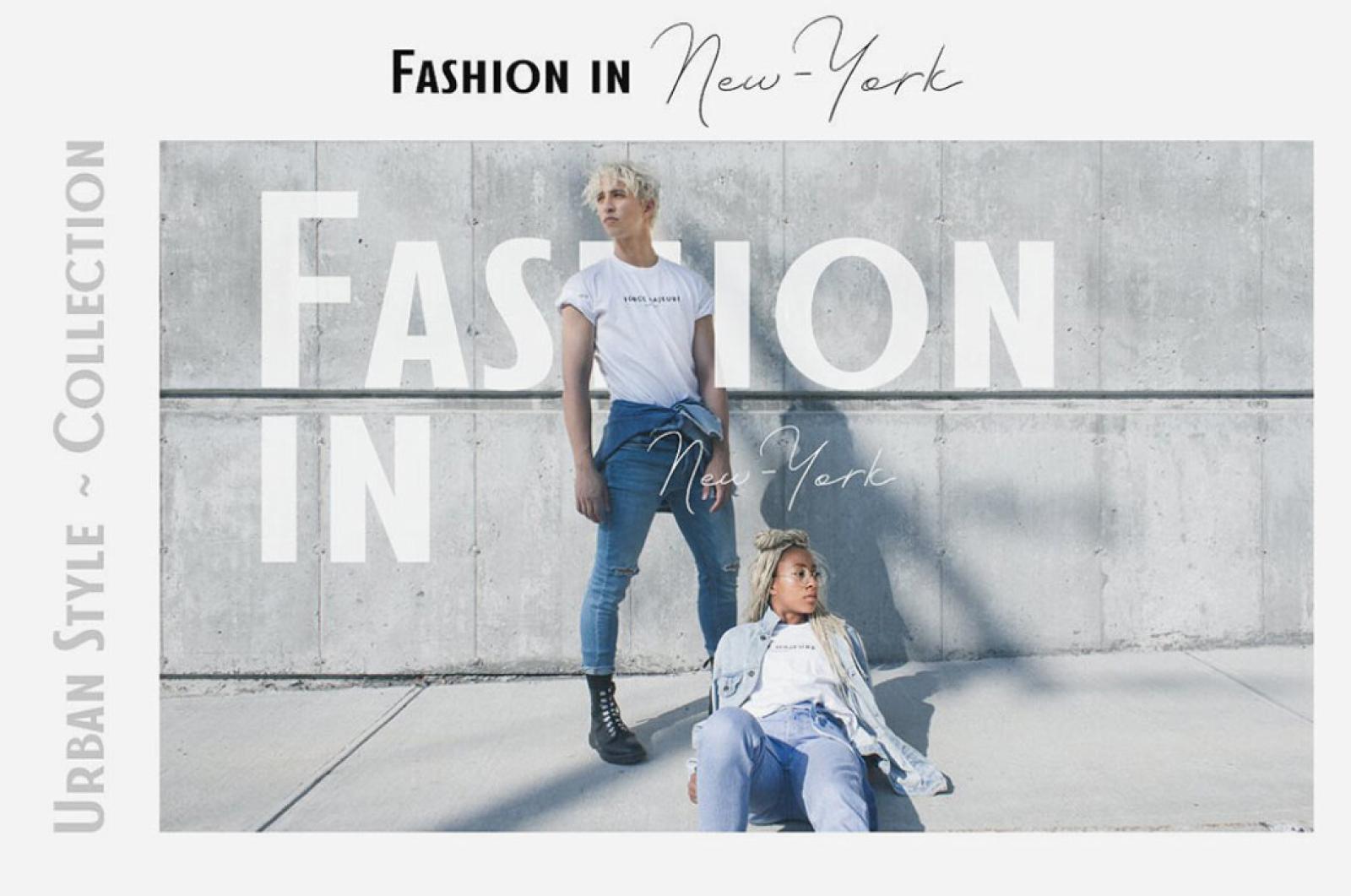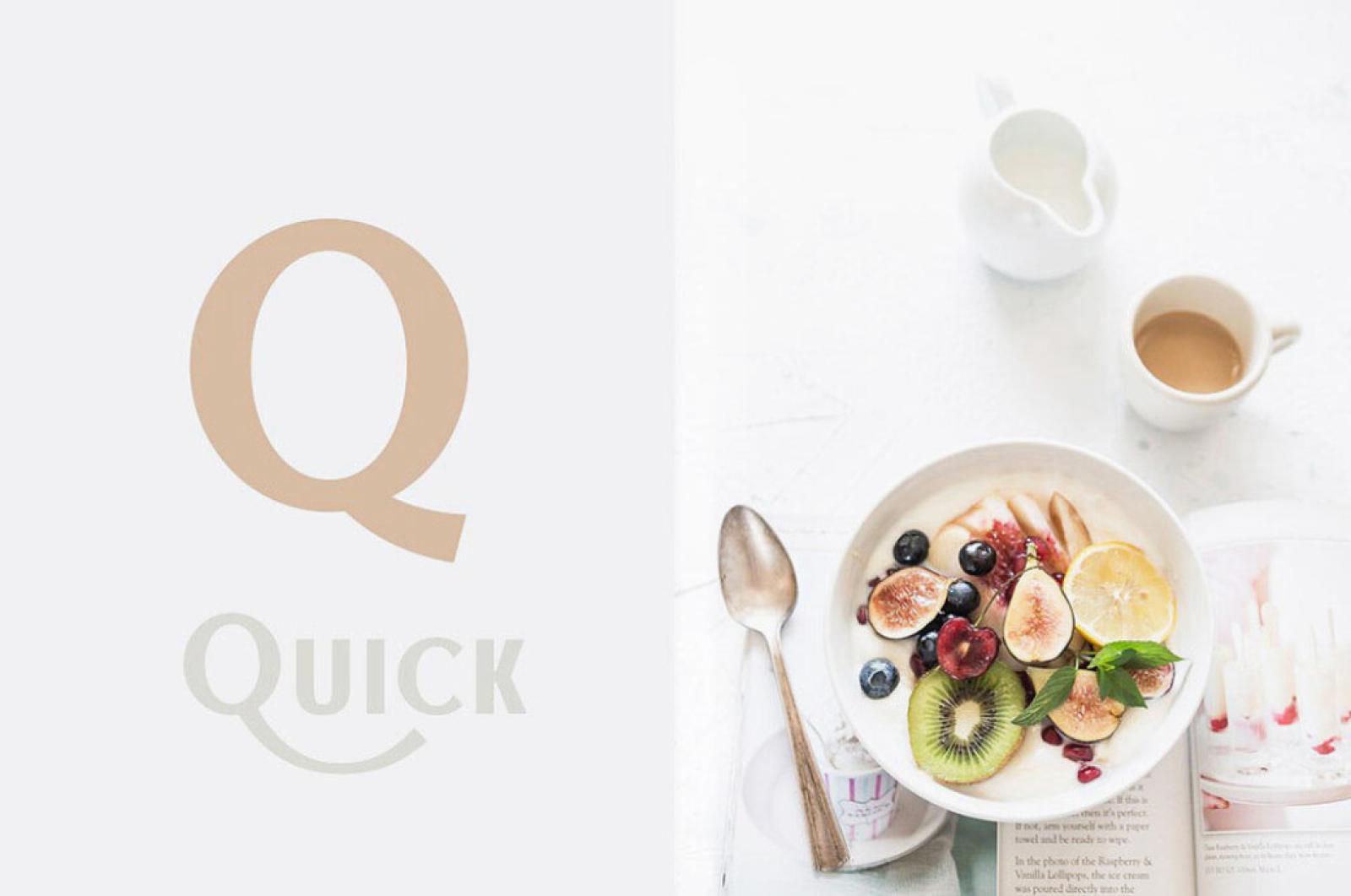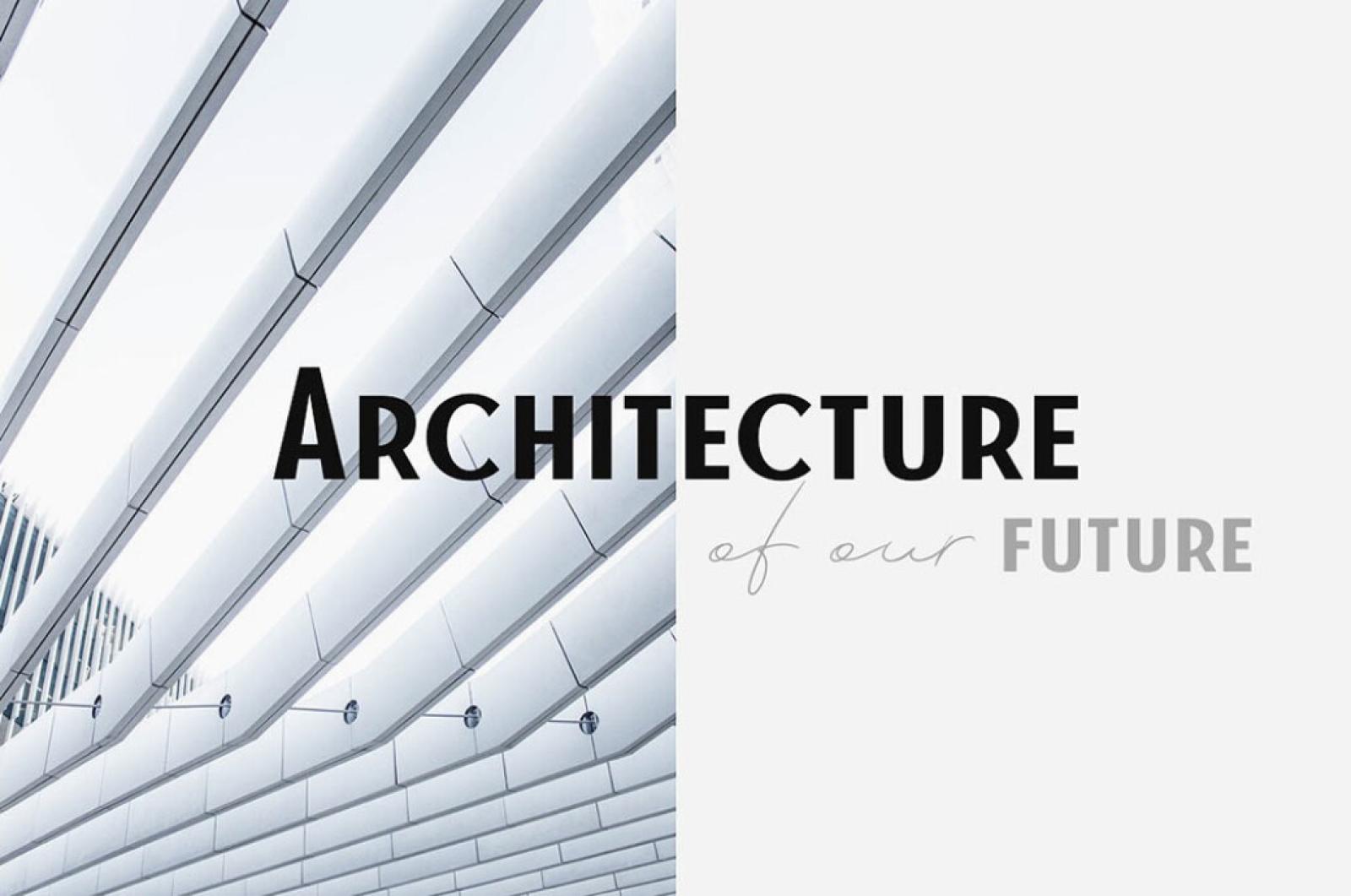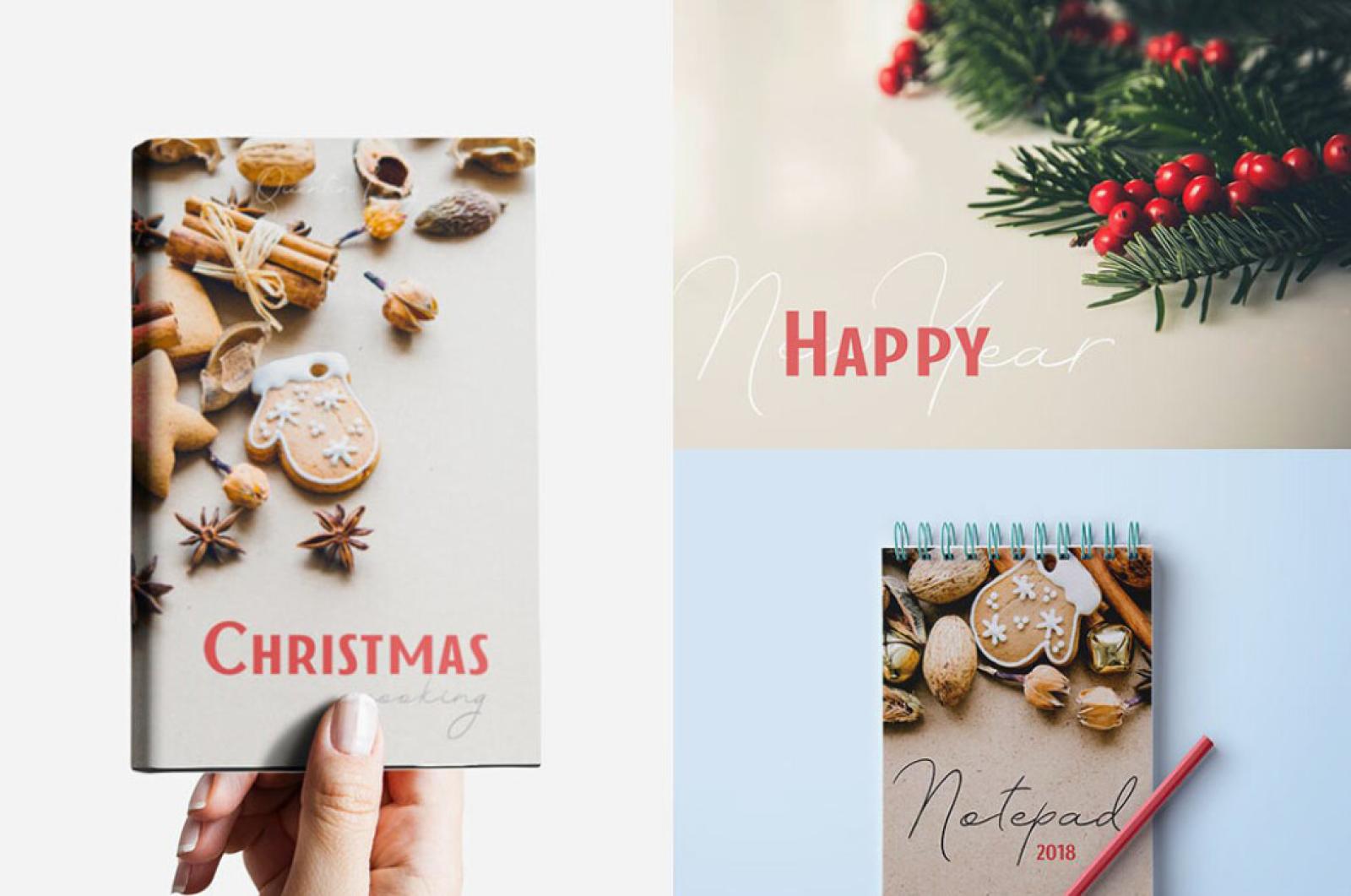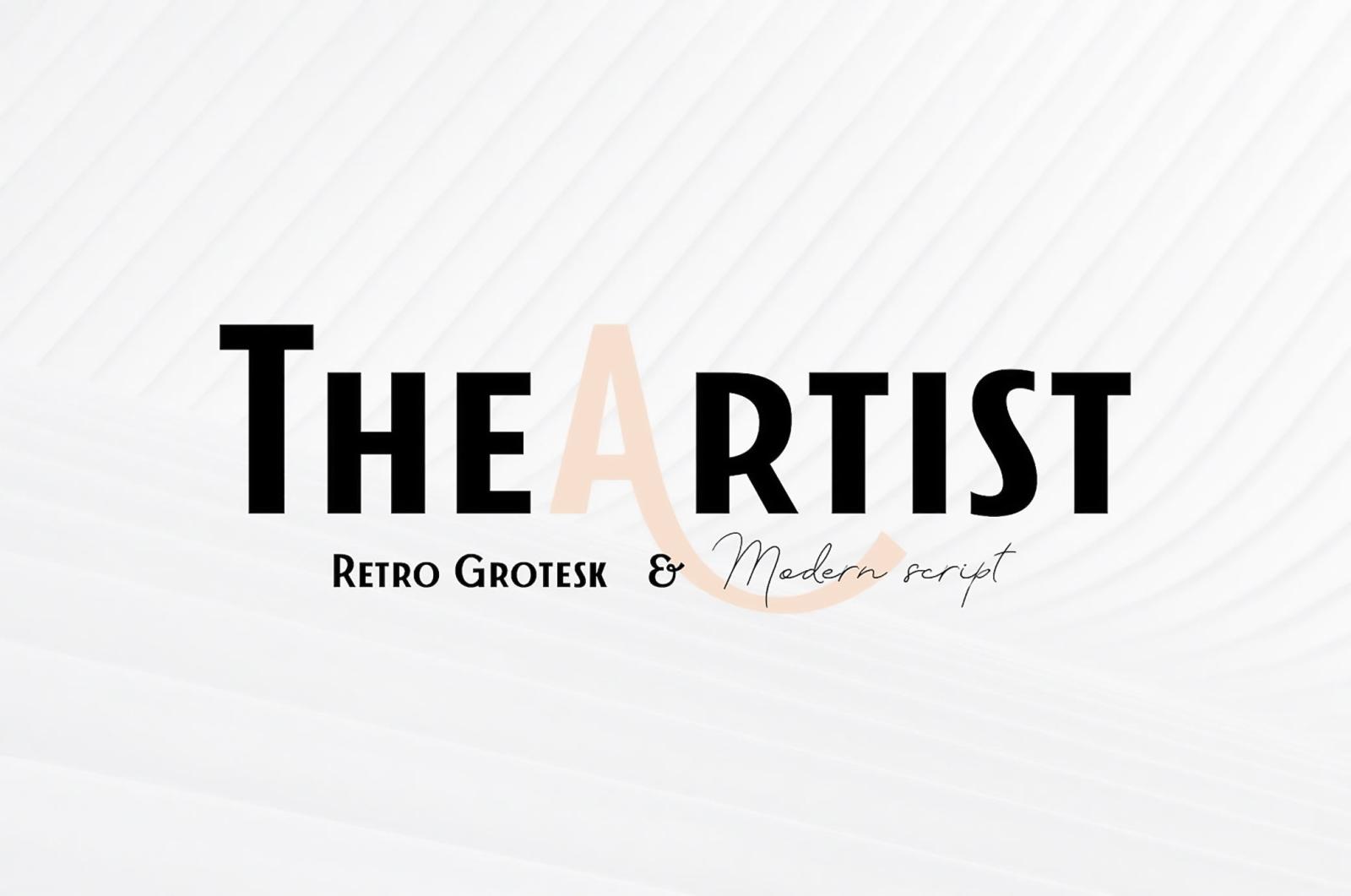
The Artist Font Duo
Cinematography is an art, so we're here with a font duo, which breathes its sophisticated beauty. The Artist embraces a retro grotesque typeface and a modern script typeface with all extras you want from high-quality typography.
The Artist comes with extended multilingual support and that means only one thing: Cyrillic symbols are included! It gives you an absolute artistic freedom and covers all sorts of project you will touch. Posters, websites & apps, stationery, t-shirts and tote bags are among all outstanding items you can create with The Artist, and you are always welcome to come and create something 100% unique and extraordinary with it.